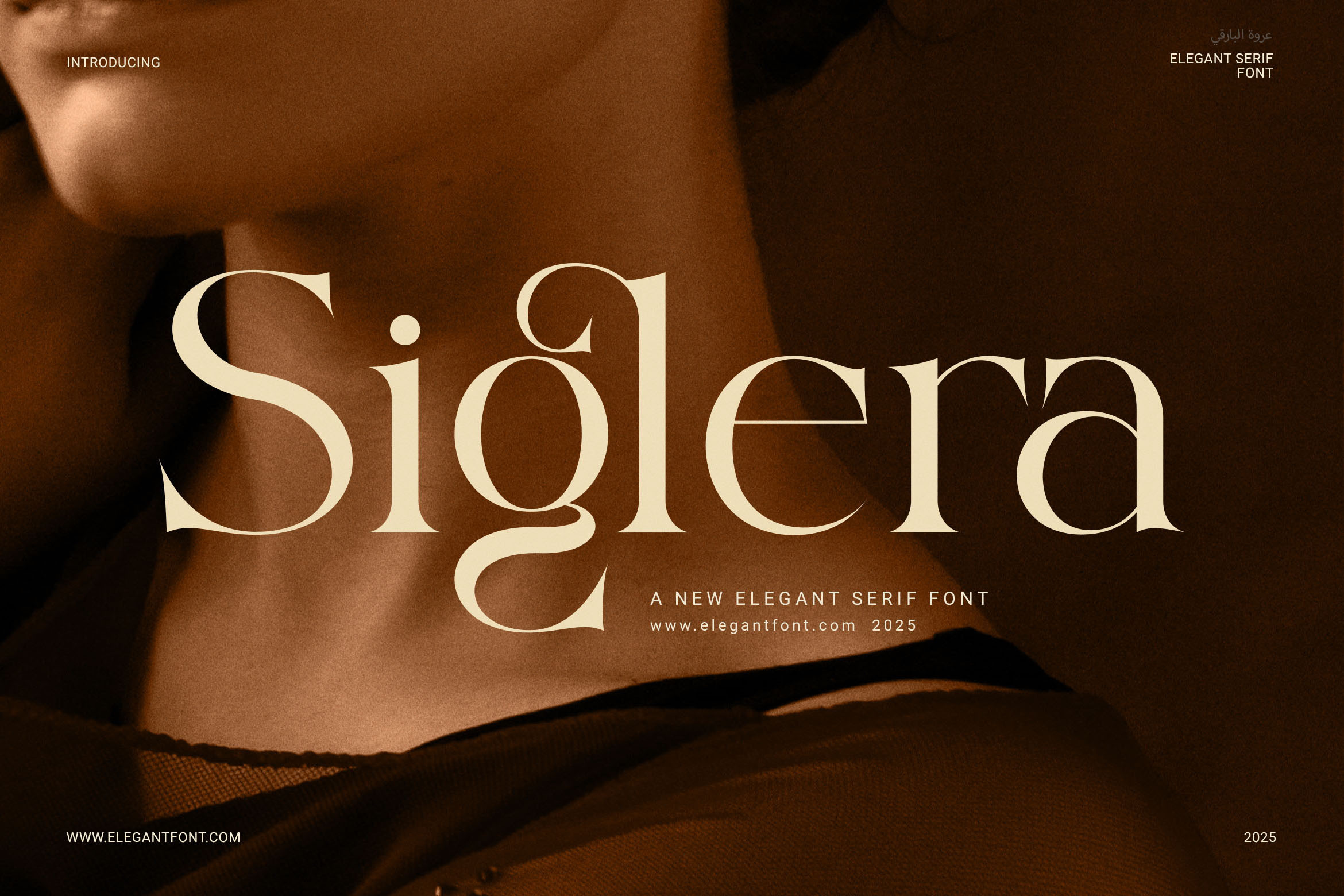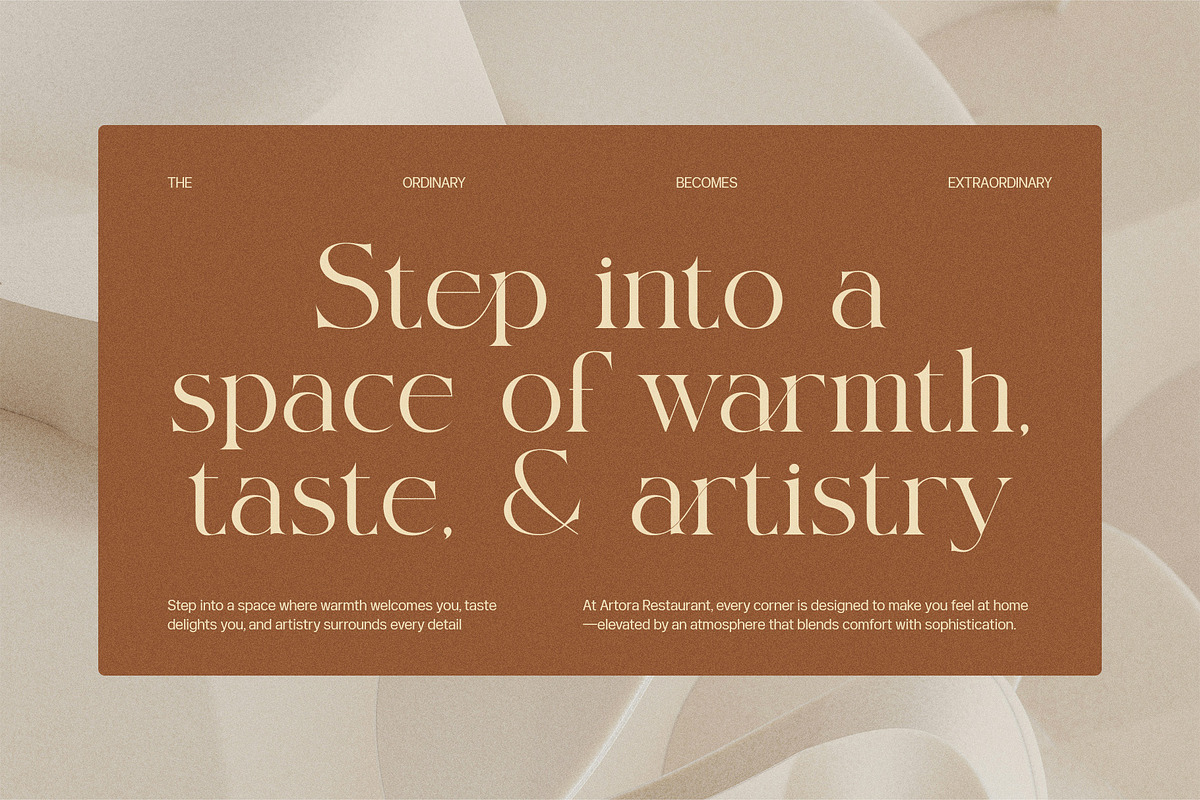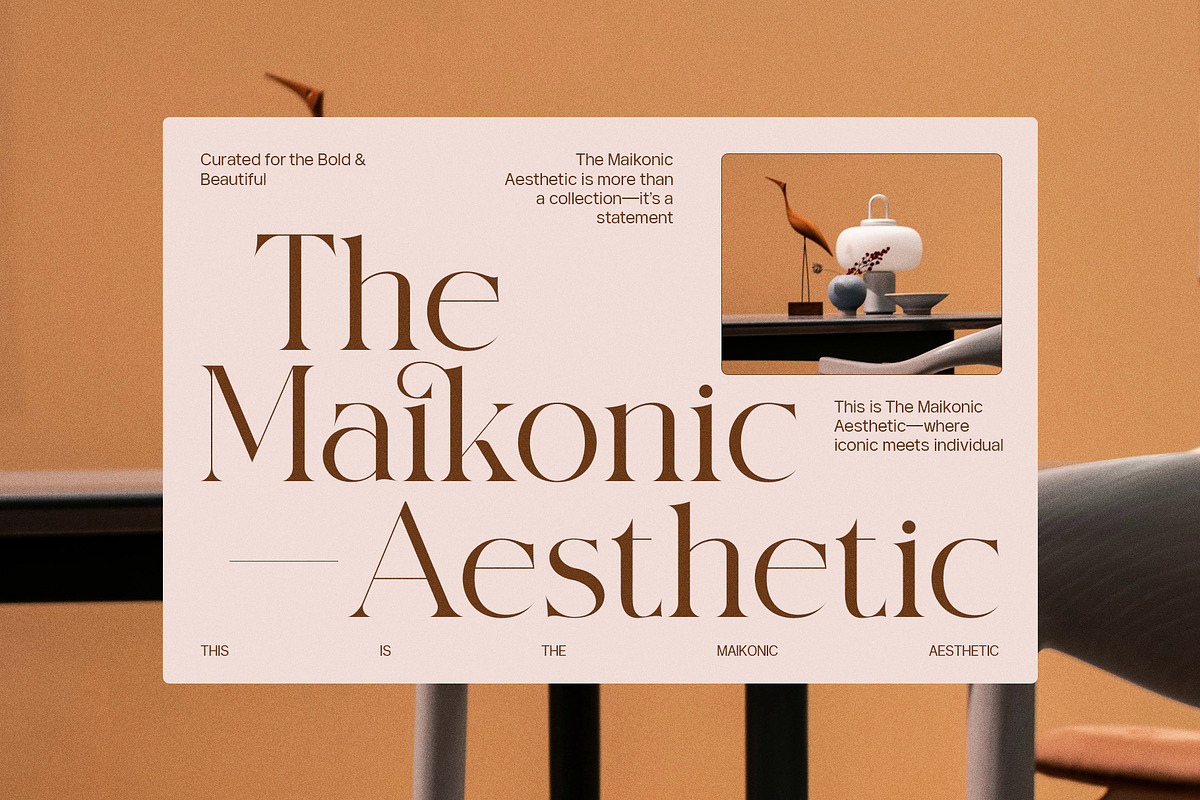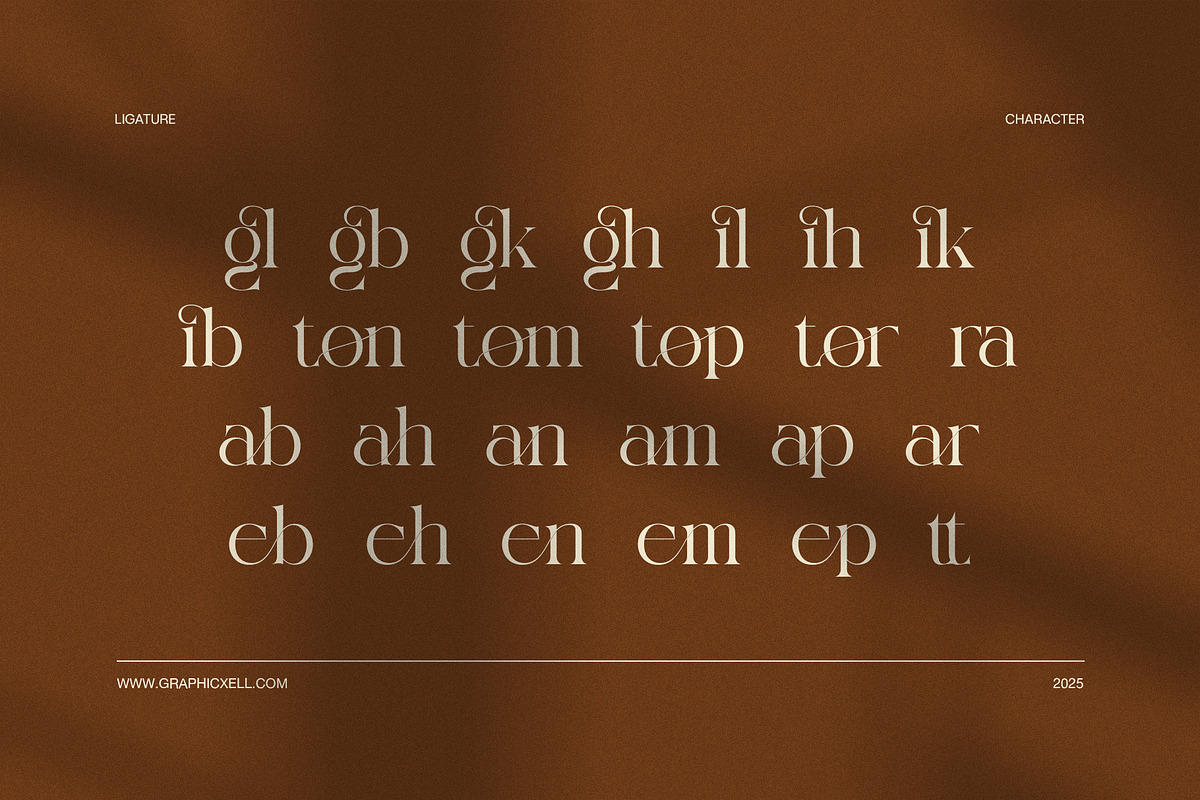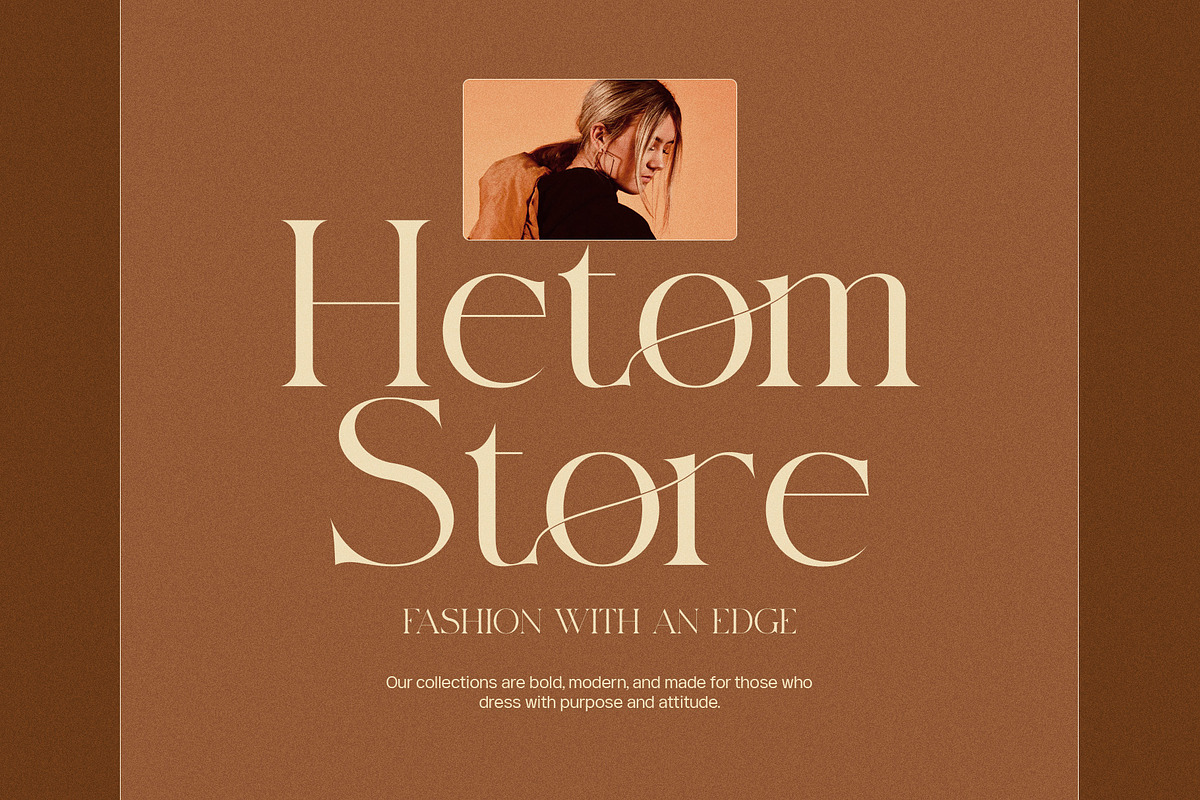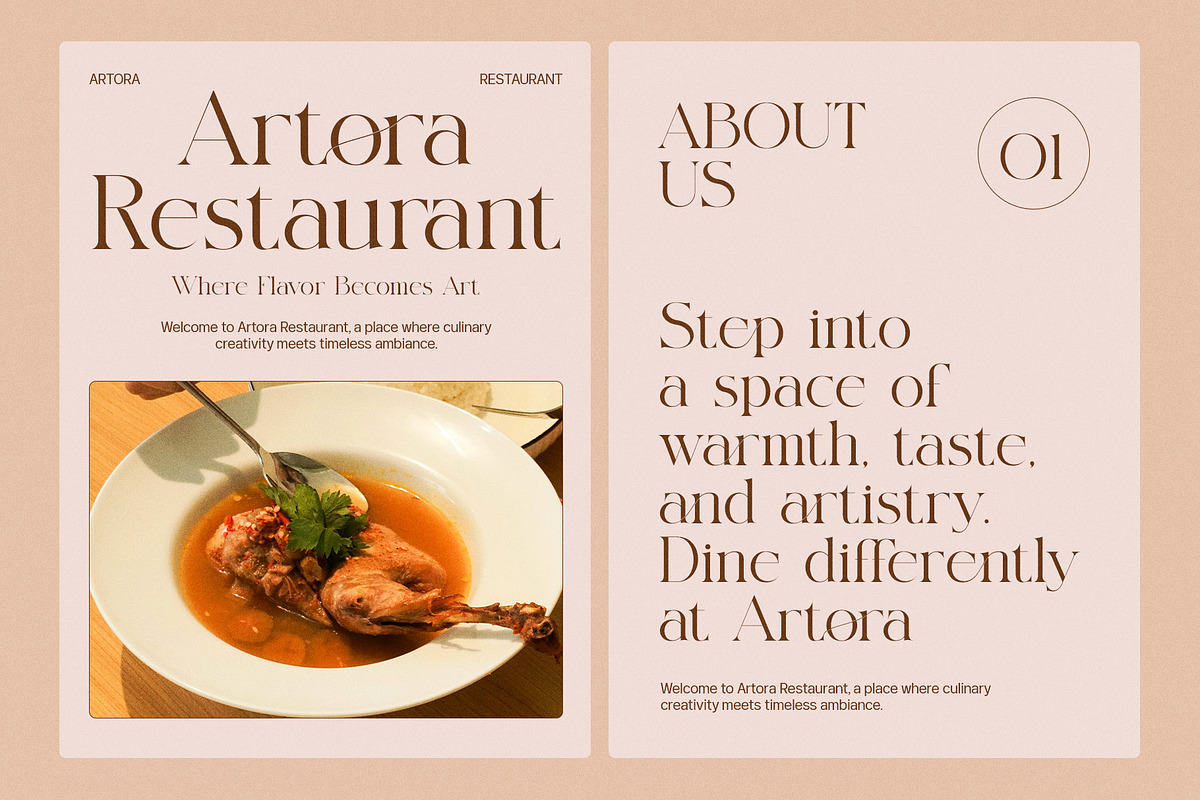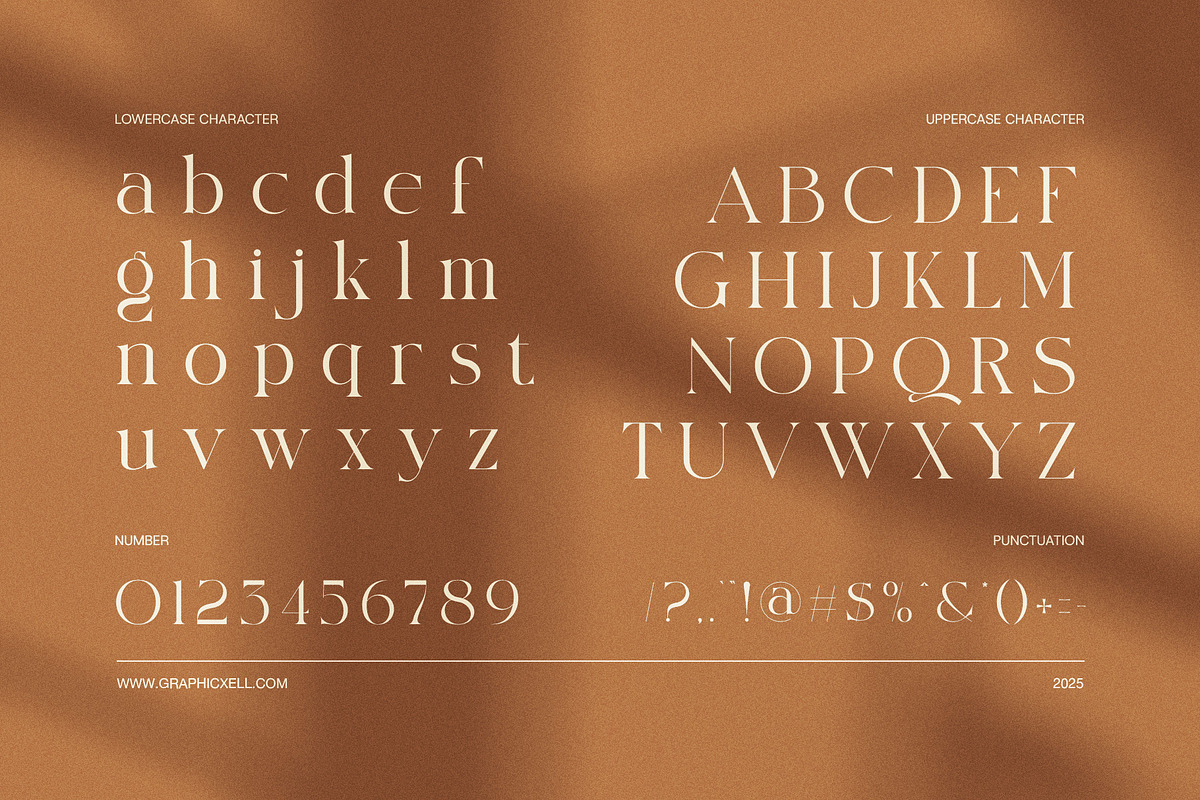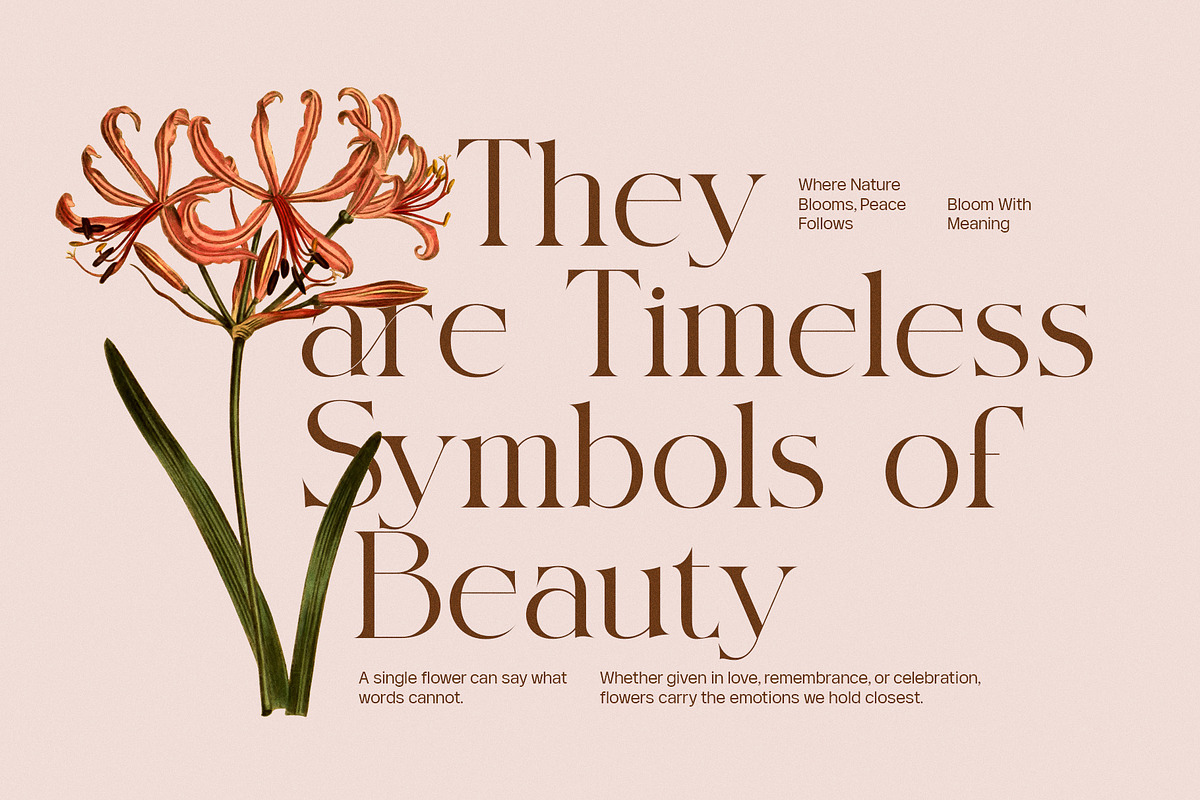
Siglera Elegant Serif Font
Sigera is a luxury serif font that blends elegance, high contrast, and refined stylization to elevate any design. Whether you create branding, logos, wedding invitations, or high‑end editorial designs, this serif typeface delivers polished visual impact. It is bold yet graceful, dramatic yet readable, perfect for display headings as well as features in luxury packaging and editorial layouts.
Here are key features and benefits:
High contrast strokes that create a dramatic visual hierarchy
Elegant flourishes & terminals add sophistication without compromising legibility
Sharp serifs and smooth curves for timeless refinement in every character
Large uppercase characters with distinctive style for headlines and logos
Support for extended language sets so your design communicates globally
Perfect for luxury branding, editorial, invitations, packaging, beauty & fashion
In addition, this serif font helps your brand look refined. It works very well in titles, magazine spreads, premium product labels, logo design and signage. Because it offers strong character shapes and clear contrast, Sigera holds up even when printed large or displayed on screens. Also, because it balances ornament with readability, it suits both classic and modern projects.
Moreover, you’ll find that when you first see Sigera, the visual tone screams luxury, refinement, and style. Yet it remains practical: every letter is designed to flow, every serif crafted to impress without being overbearing. If you want your design to feel upscale, cinematic, and artful, this font is a strong choice.